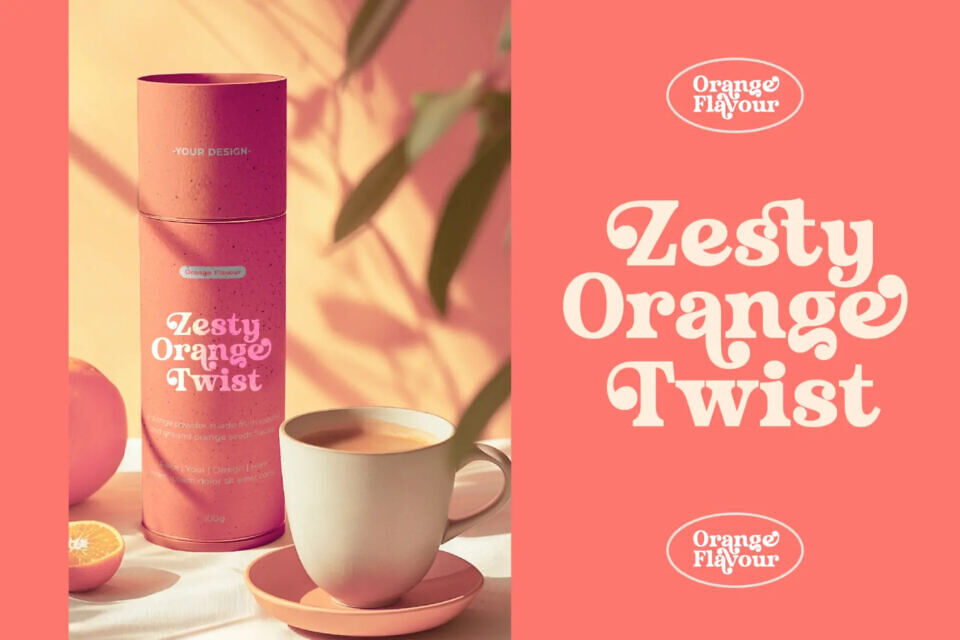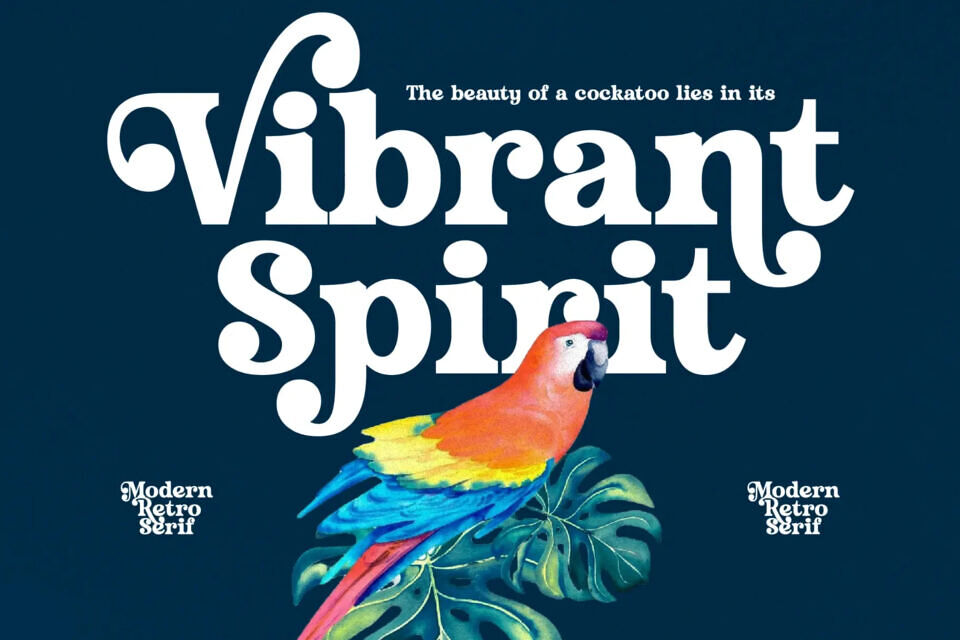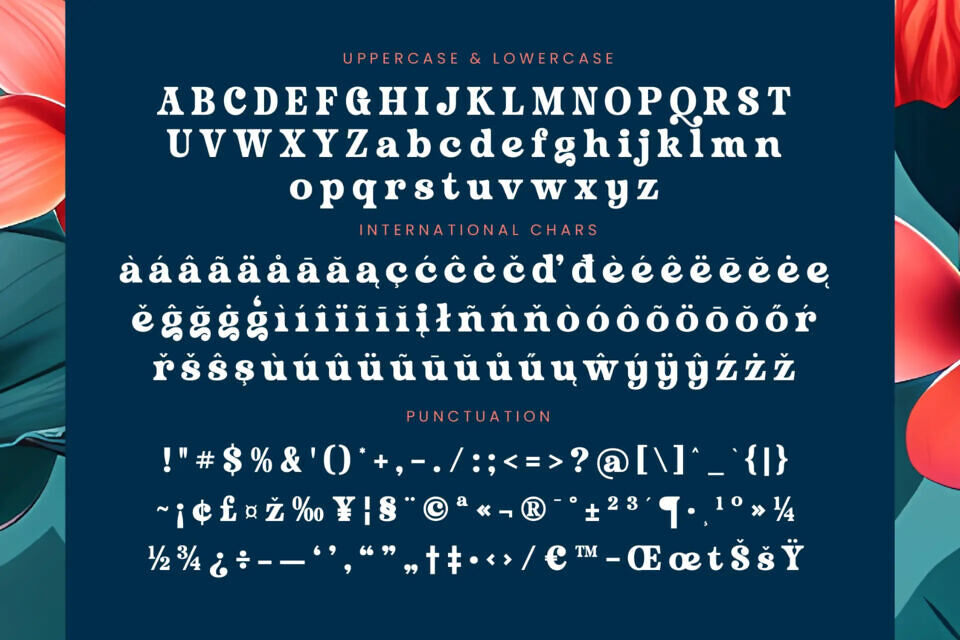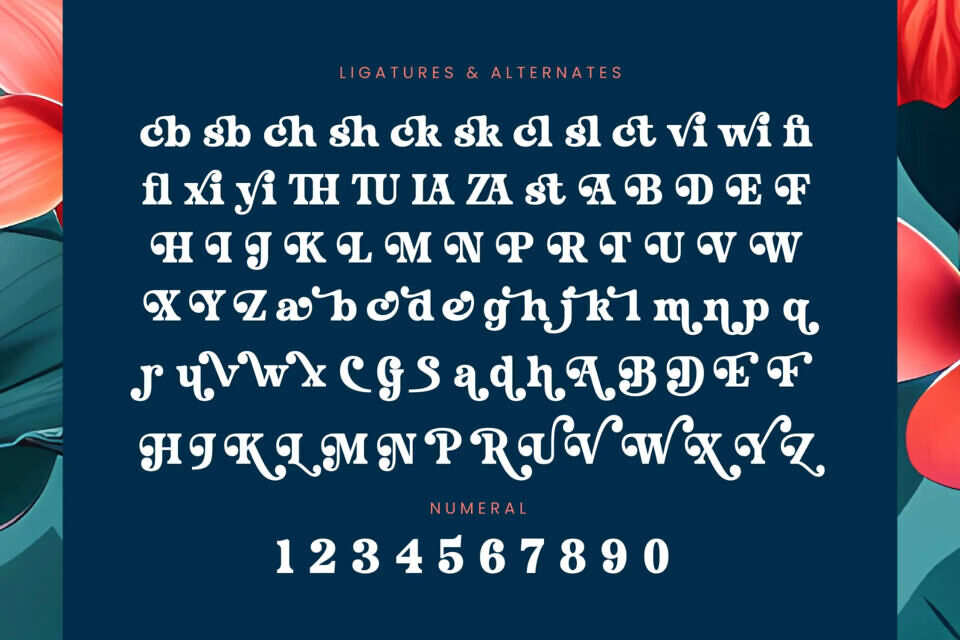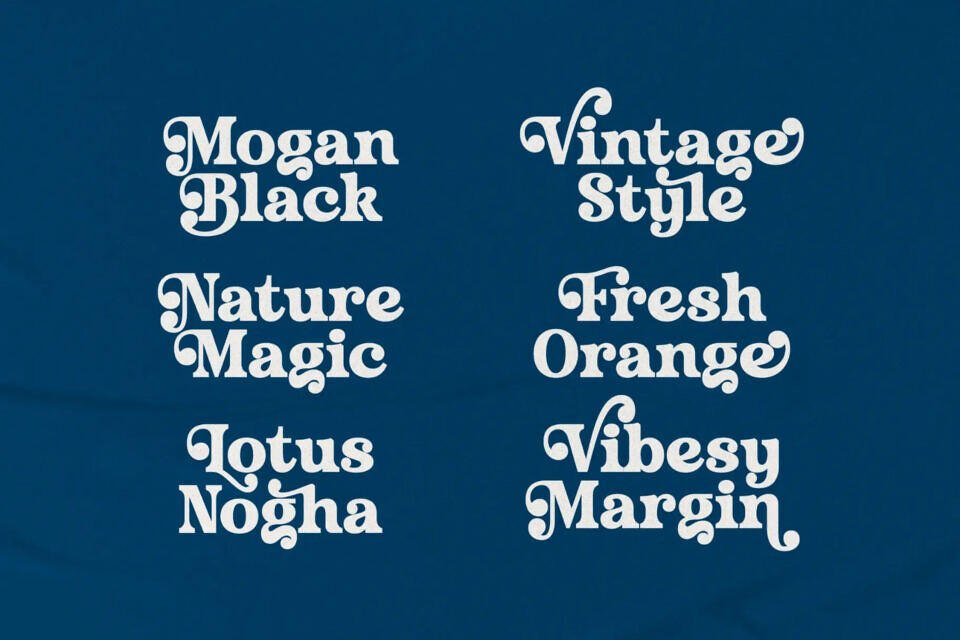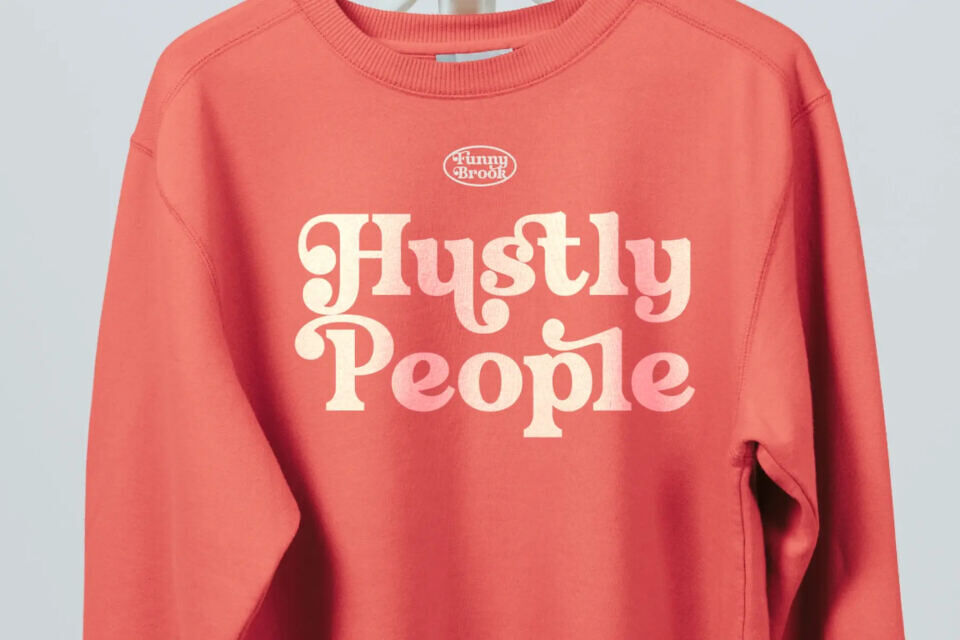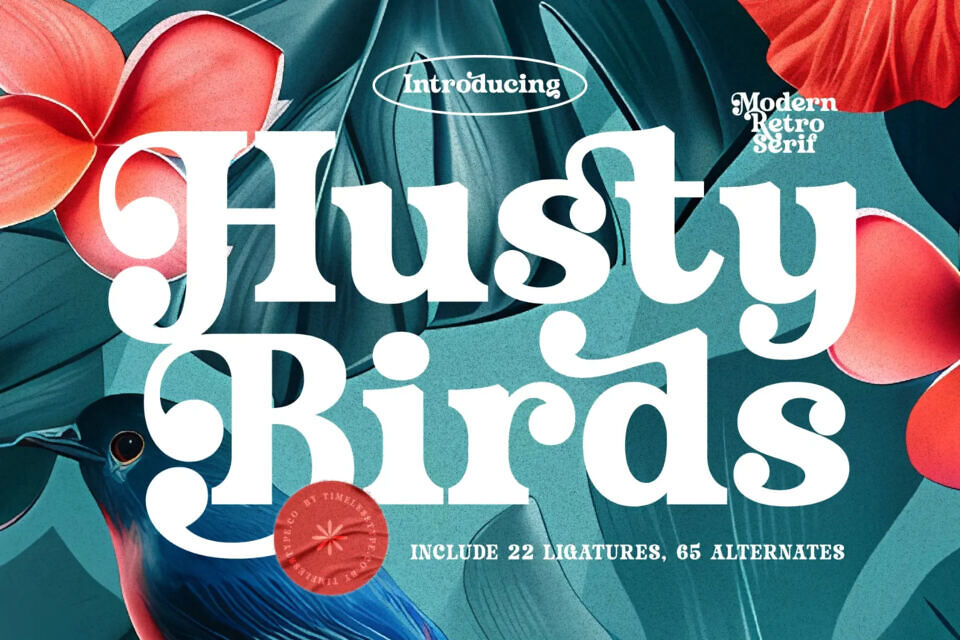
Husty Birds Font
Husty Birds is a modern retro serif font that blends bold structure with playful vintage curves, creating a typeface full of charm and character. Its thick strokes, rounded edges, and decorative terminals give it a nostalgic yet contemporary feel, making it a perfect choice for designs that want to balance classic retro vibes with modern versatility.
Equipped with 22 ligatures and 65 alternates, Husty Birds provides designers with plenty of stylistic options, ensuring typography never feels repetitive but instead dynamic and full of personality.